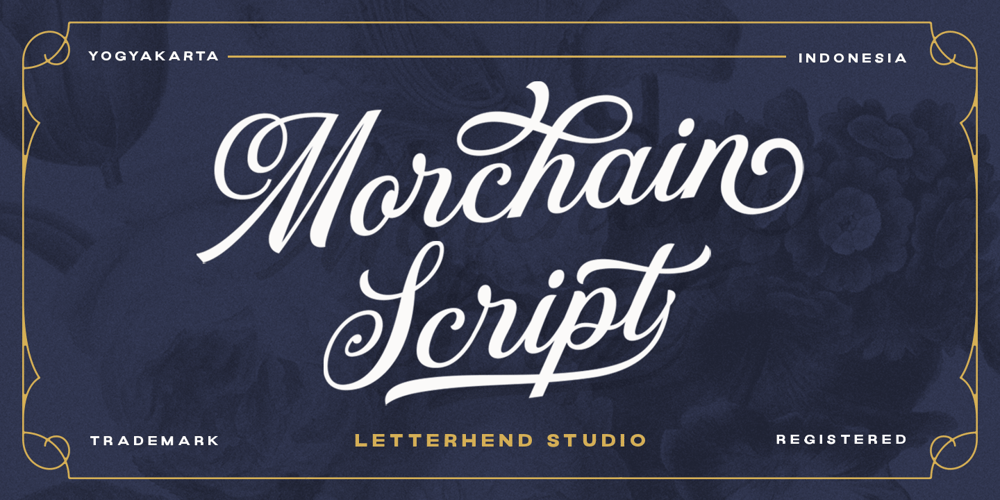
Morchain
Morchain font
Morchain Font Family was designed by Hendry Juanda and published by Letterhend. Morchain contains 1 styles and family package options. Morchain is a classy script. This typeface has nostalgic feel because of its style, so the font is really match for your project with classic/vintage theme. T This font perfectly made to be applied especially in logo, and the other various formal forms such as invitations, labels, logos, magazines, books, greeting / wedding cards, packaging, fashion, make up, stationery, novels, labels or any type of advertising purpose.Features : Uppercase & lowercase Numbers and punctuation ALternates & Ligatures Multilingual PUA encoded We highly recommend using a program that supports OpenType features and Glyphs panels like many of Adobe apps and Corel Draw, so you can see and access all Glyph variations.